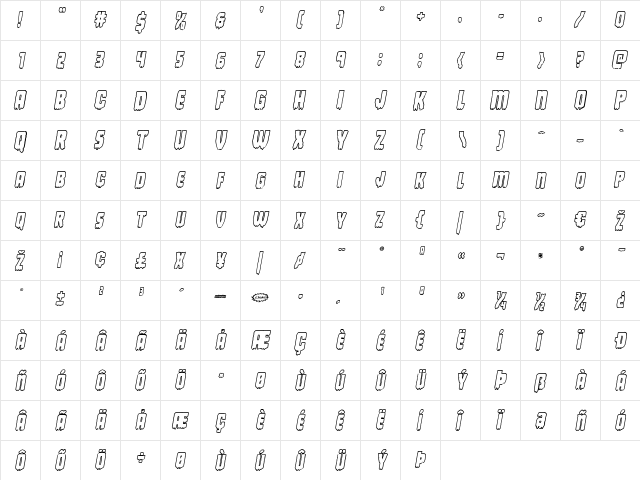
Deathblood Bold Outline Italic Italic
Design Context for Deathblood Bold Outline Italic Typeface
Deathblood Bold Outline Italic carries an unsettling edge — its distorted letterforms are built to unsettle, perfectly suited to horror, Halloween, and dark creative work. The slanted form adds forward momentum and visual energy.
Perfect for anything that needs to unsettle — game titles, horror branding, and macabre invitations.
Font Pairing: Pair with a clean neutral sans-serif for body copy to let Deathblood Bold Outline Italic's character lead without overwhelming the composition.
Pro Tip: Use Deathblood Bold Outline Italic at larger display sizes for maximum impact. Consider generous tracking to let the disturbing character of each letterform breathe.